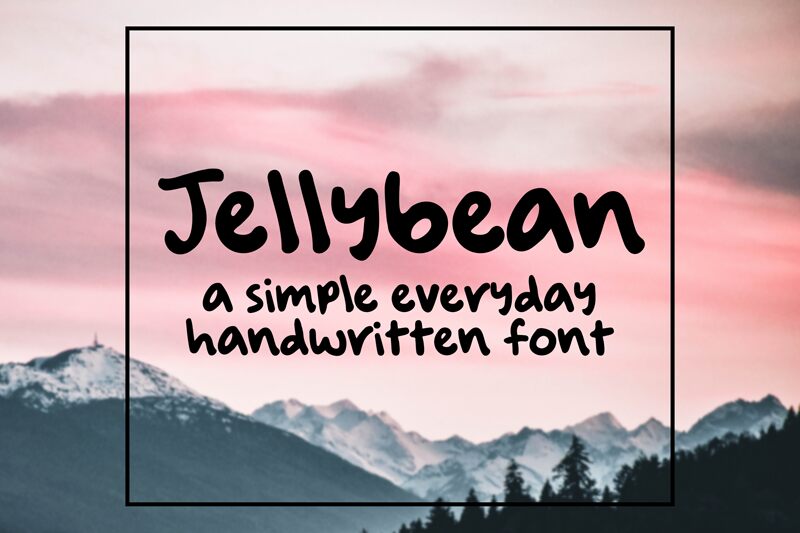
Jellybean font by Tate Chaffin is a free handwritten font characterized by its familiarity, casual vibe, approachability, and organic appearance. It is individually designed and visually irregular, resulting in each letter containing its recognizable charm that elevates a handwritten appearance. The modern nature of the typeface makes it versatile and suitable for personal projects. Explore DIY aesthetics and messages with an easygoing mood that have a contemporary appeal.
Pair it up with the right background for stickers and labels that feature fun lettering. Its legibility and style make it a splendid choice for invitations, cards, branding designs, banners, posters, and business cards. A handwritten touch can transform all online projects including blogs and platforms, so why not get a personal twist that will become the mark for your social media presence? All greetings and welcoming mats can have their touch with Jellybean font so you can share your online pages or your shopping/restaurant experience with smiles all around!